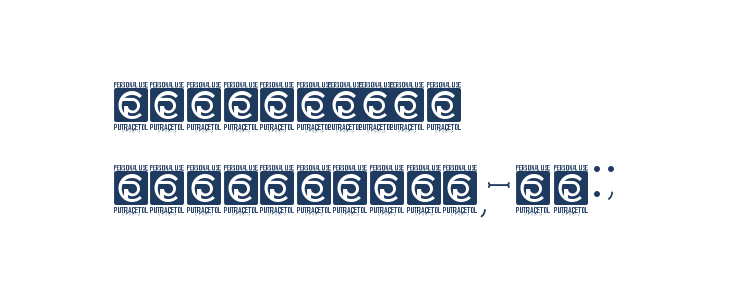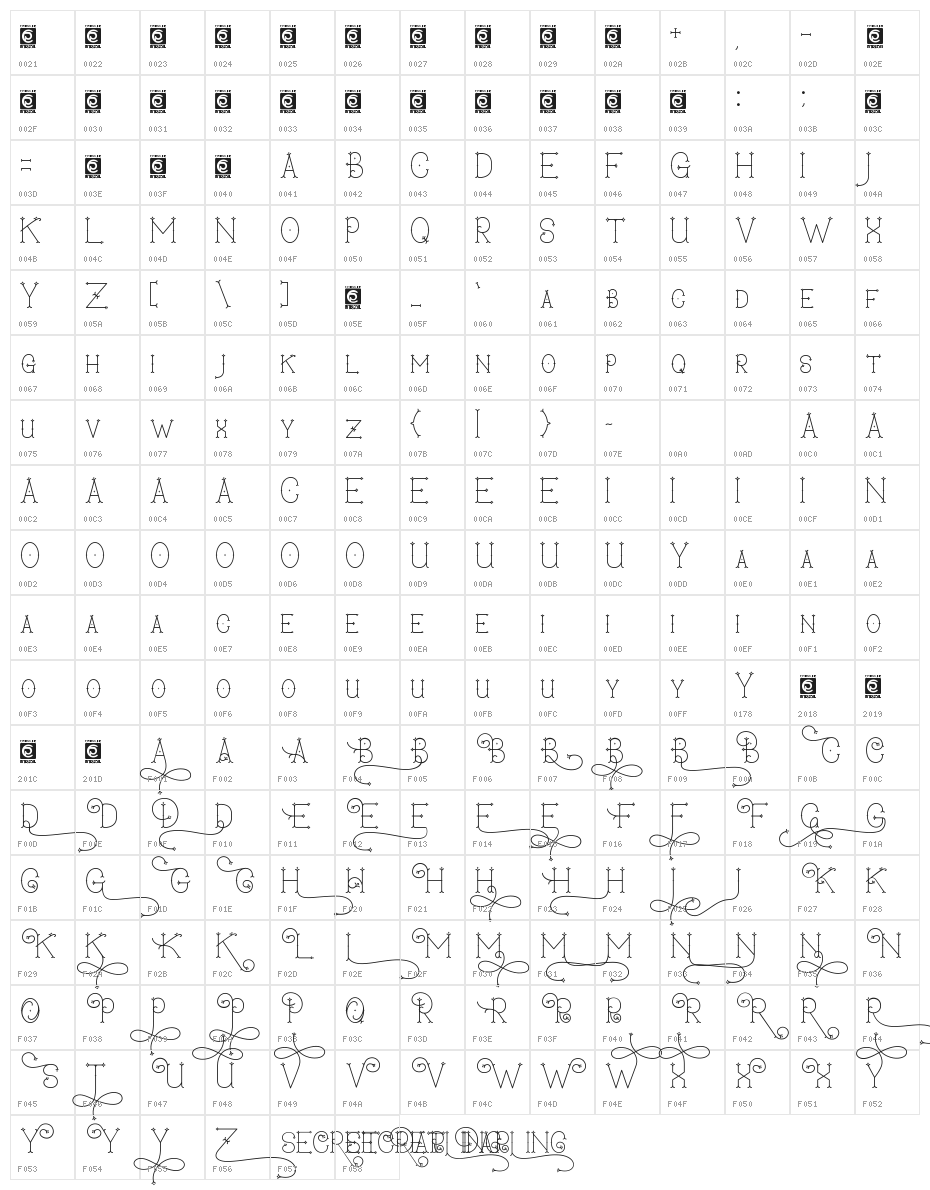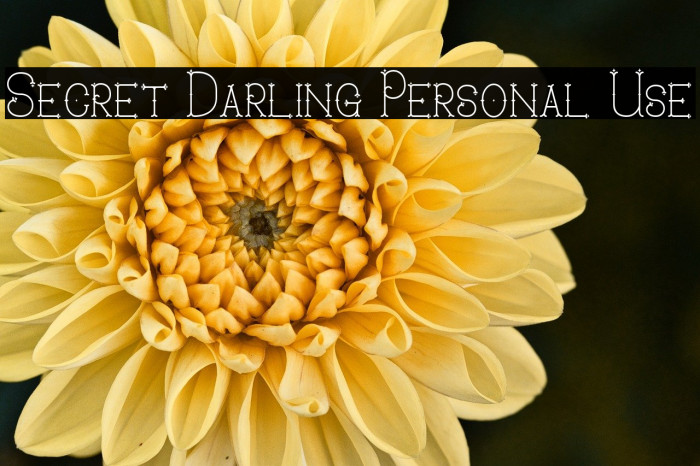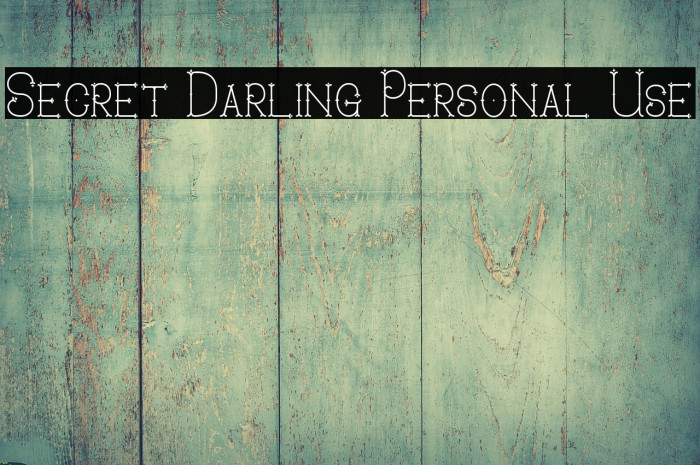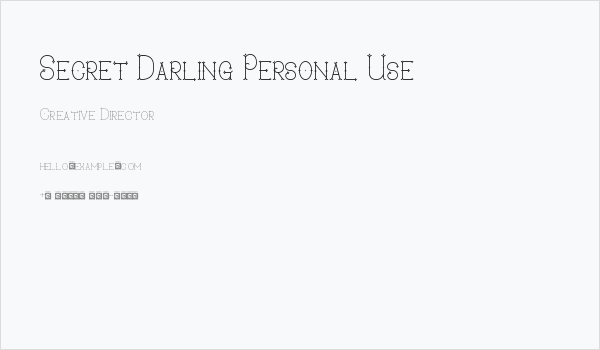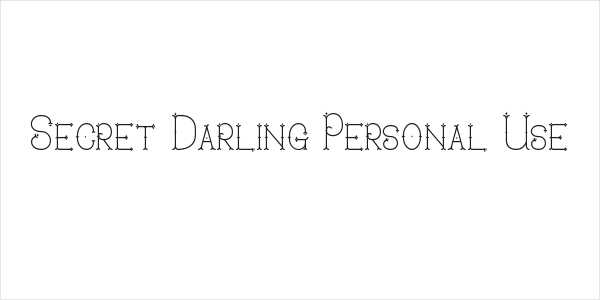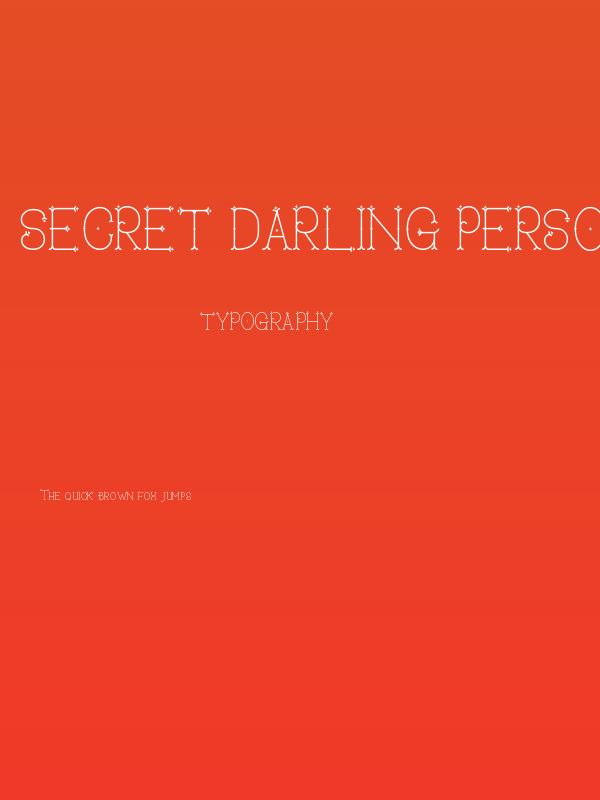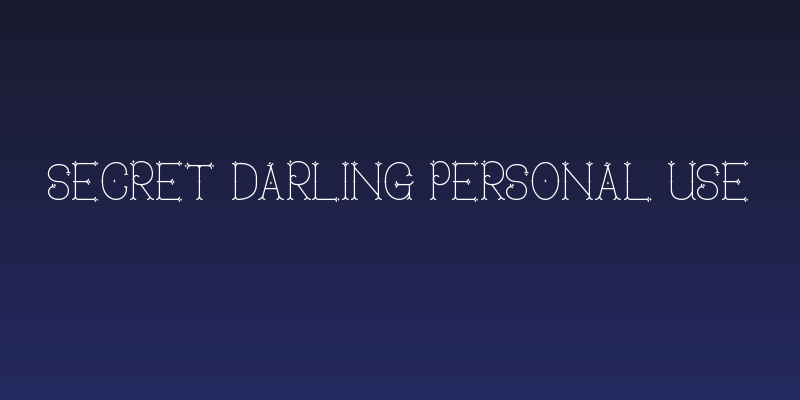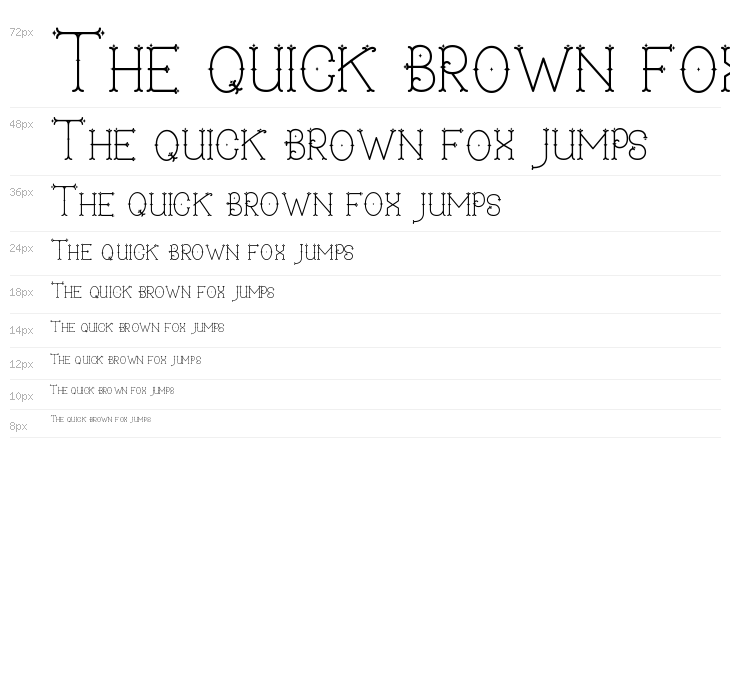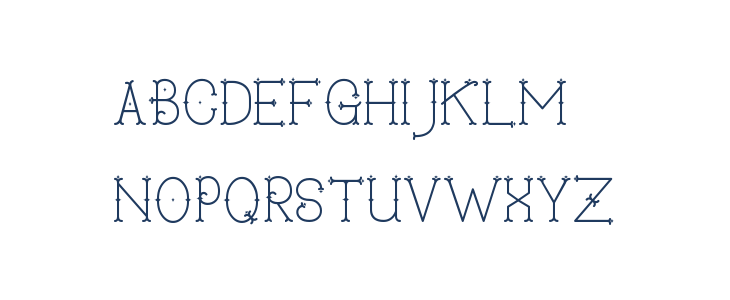
Secret Darling Personal Use Font
Secret Darling Personal Use Description
This font features a unique and decorative style with intricate details at the ends of each letter, resembling small arrows or hooks. The characters are tall and slender, with a consistent stroke width that gives it a uniform appearance. The design is both playful and elegant, making it suitable for creative projects that require a touch of whimsy. The uppercase letters are particularly striking, with their elongated forms and distinctive embellishments. The font maintains a consistent baseline, ensuring readability despite its decorative elements.
| Proposed Projects | Ideal for invitations, greeting cards, posters, and branding projects that require a whimsical and elegant touch. |